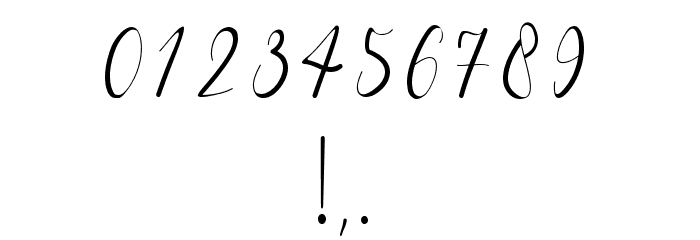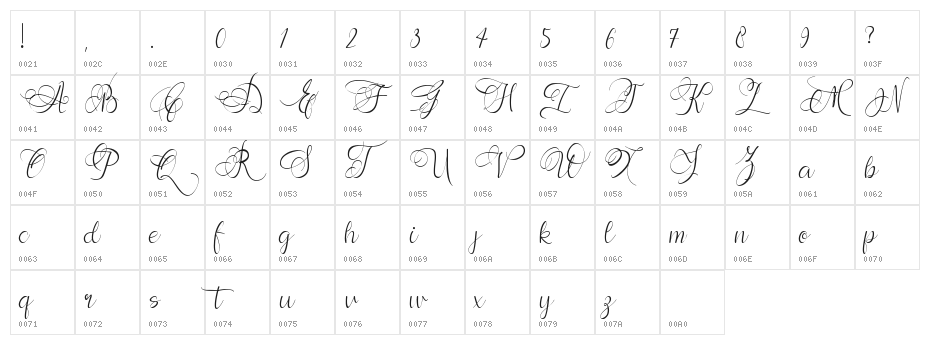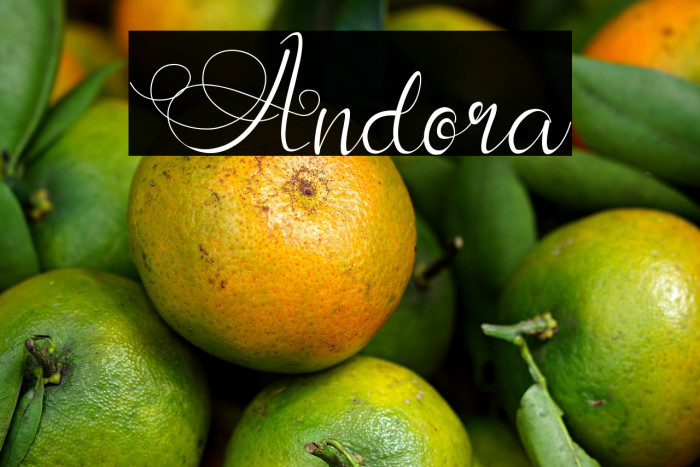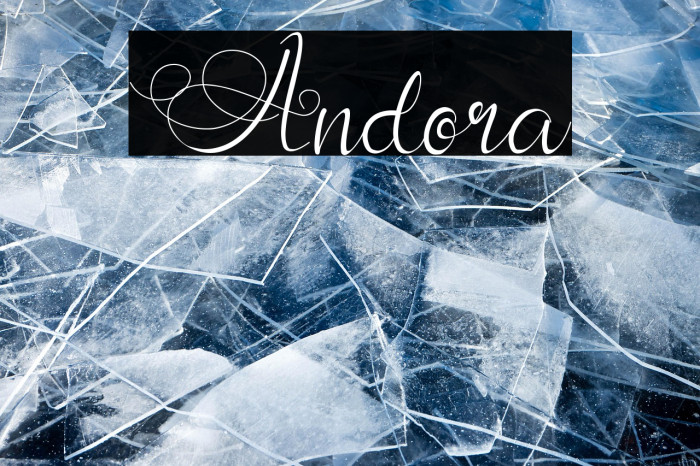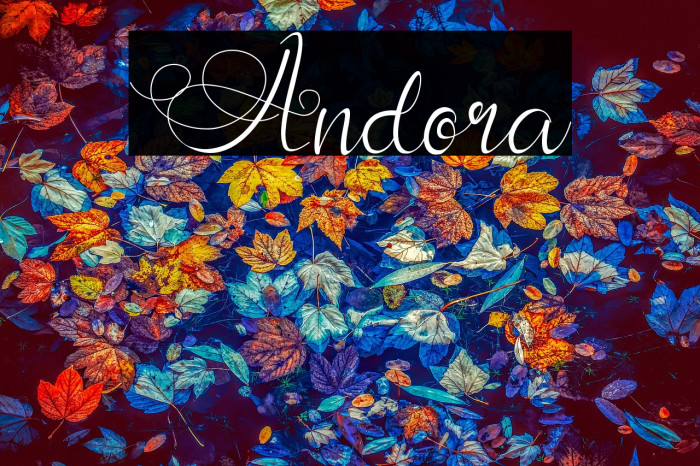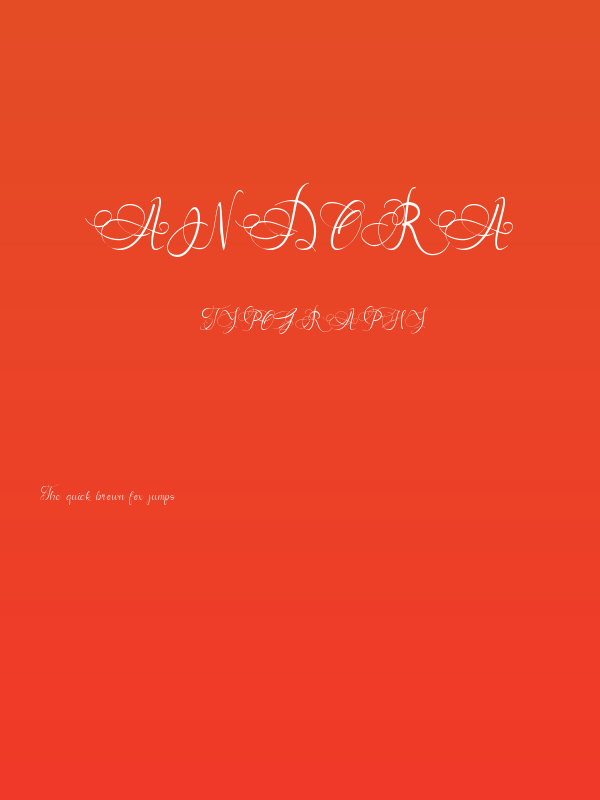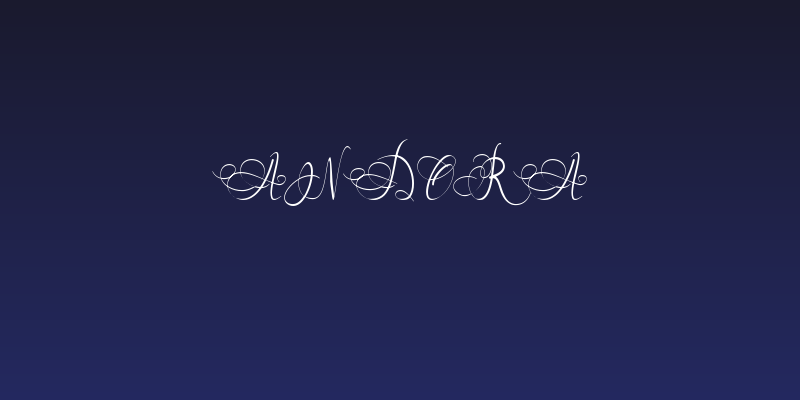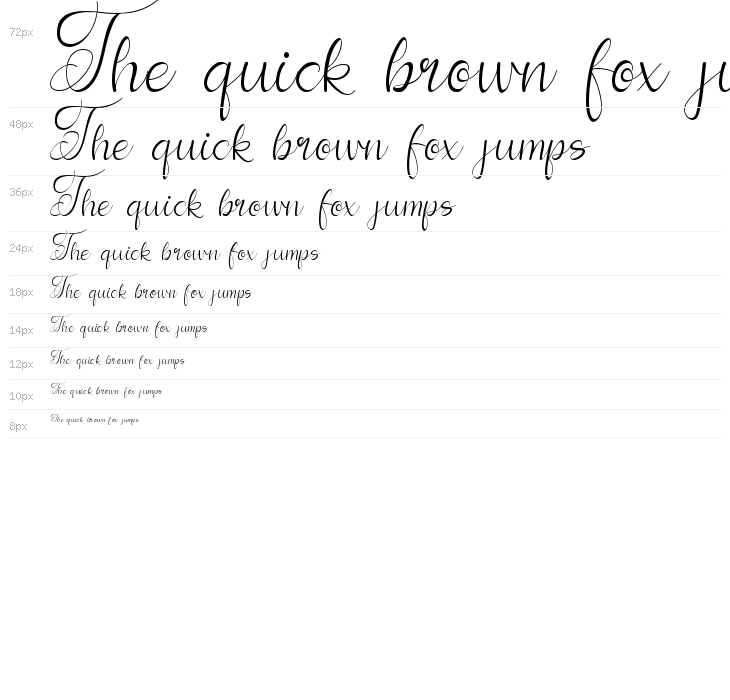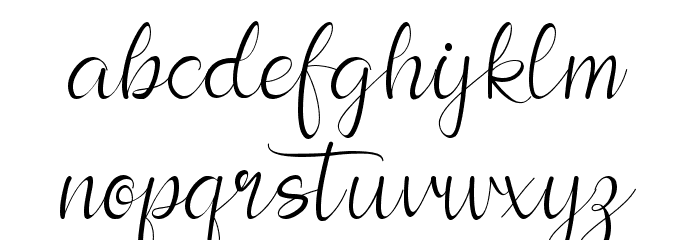
Andora Font
Andora Description
This elegant script font features intricate and flowing letterforms, characterized by its elaborate swashes and loops. The uppercase letters are particularly ornate, with each character displaying unique flourishes that add a touch of sophistication and artistry. The lowercase letters maintain a more restrained elegance, offering a smooth and fluid appearance that complements the uppercase. The numerals are consistent with the overall style, featuring slight curves that enhance readability while maintaining the decorative essence. This font is ideal for projects that require a touch of elegance and flair, such as wedding invitations, formal event programs, or luxury branding. Its artistic nature makes it suitable for decorative purposes, where the visual impact of the text is paramount.
| Proposed Projects | Wedding invitations, luxury branding, formal event programs, decorative signage. |